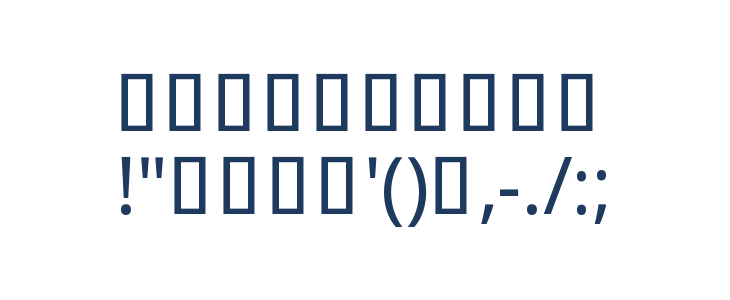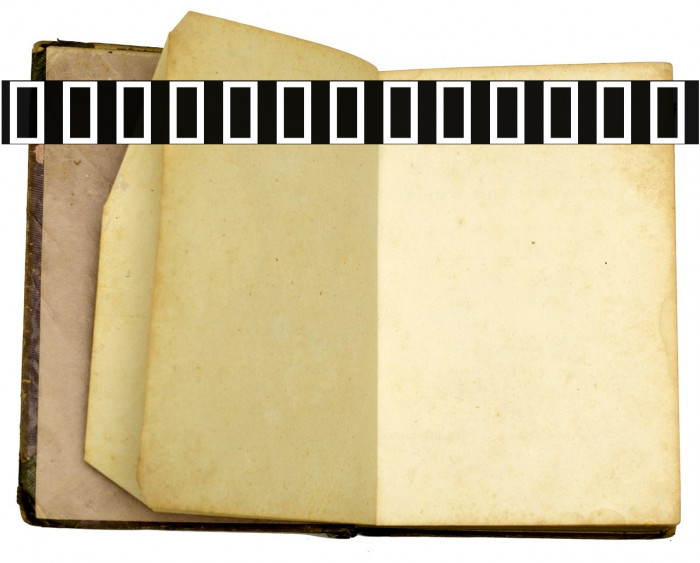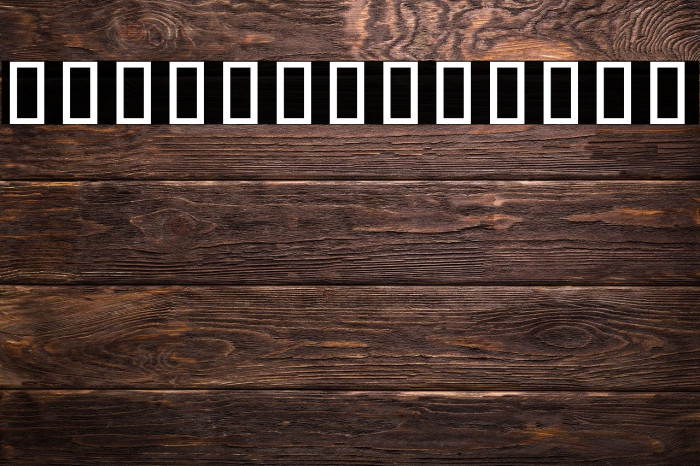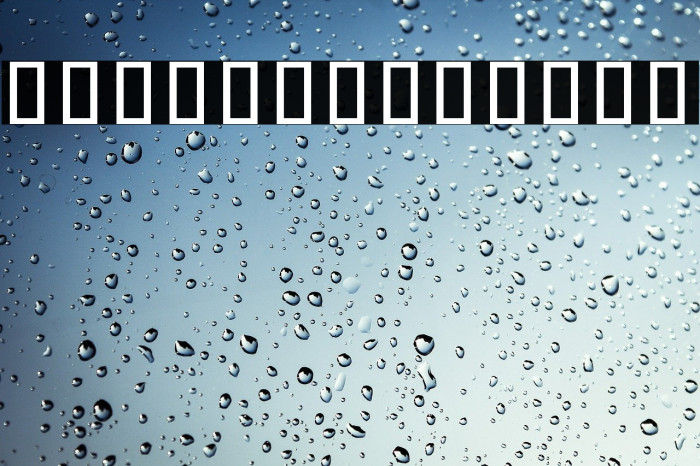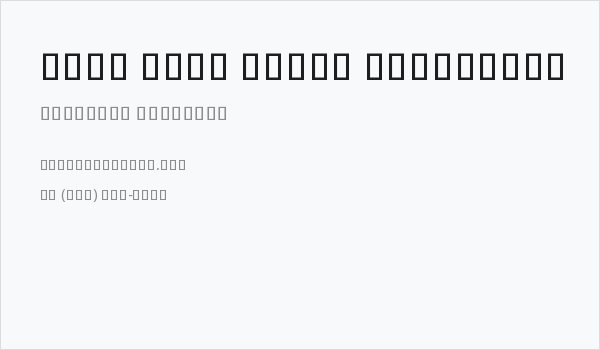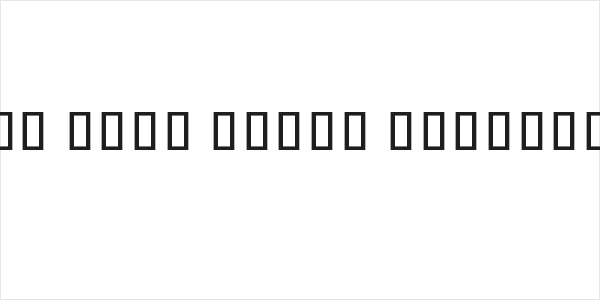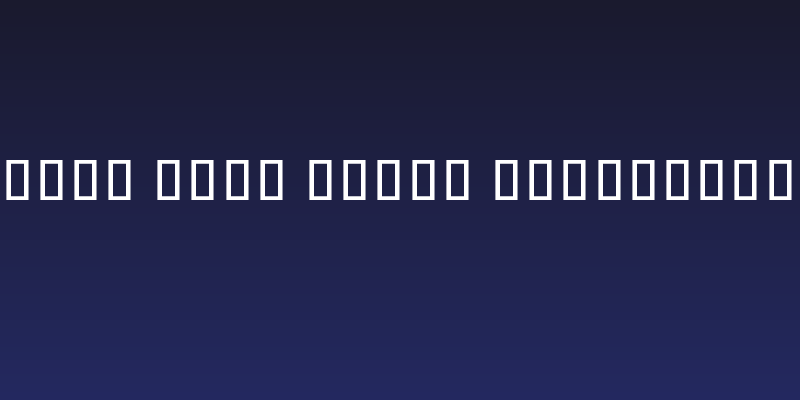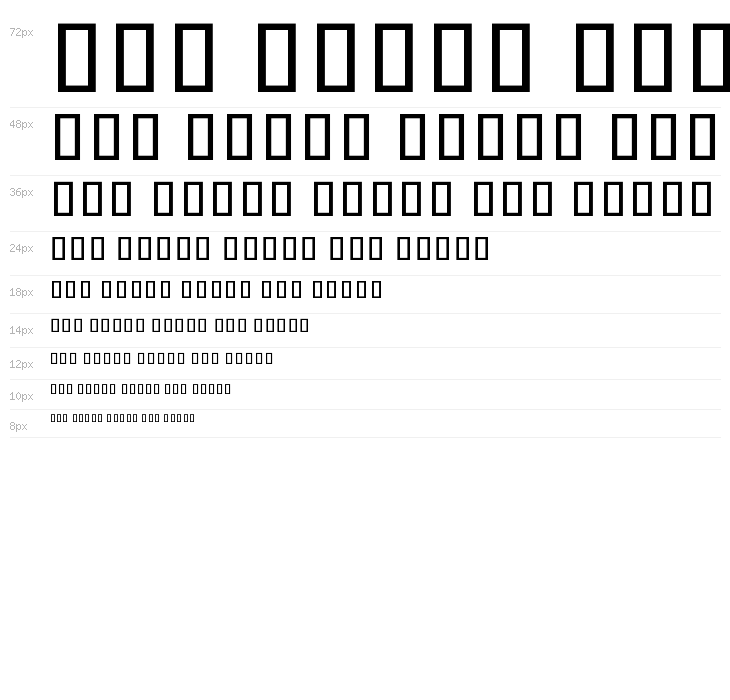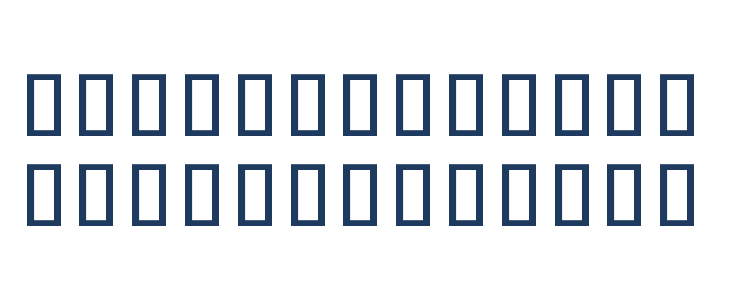
Noto Sans Khmer Condensed Font
Noto Sans Khmer Condensed Description
This font features a condensed style with a clean and modern appearance. The characters are uniformly designed with consistent stroke widths, giving it a balanced and harmonious look. The spacing between characters is tight, which enhances its compact nature. The font maintains clarity and readability, making it suitable for various applications. Its simplicity and straightforward design make it versatile for both digital and print media.
Proposed ProjectsIdeal for use in web design, mobile applications, branding, and editorial layouts where space is limited.